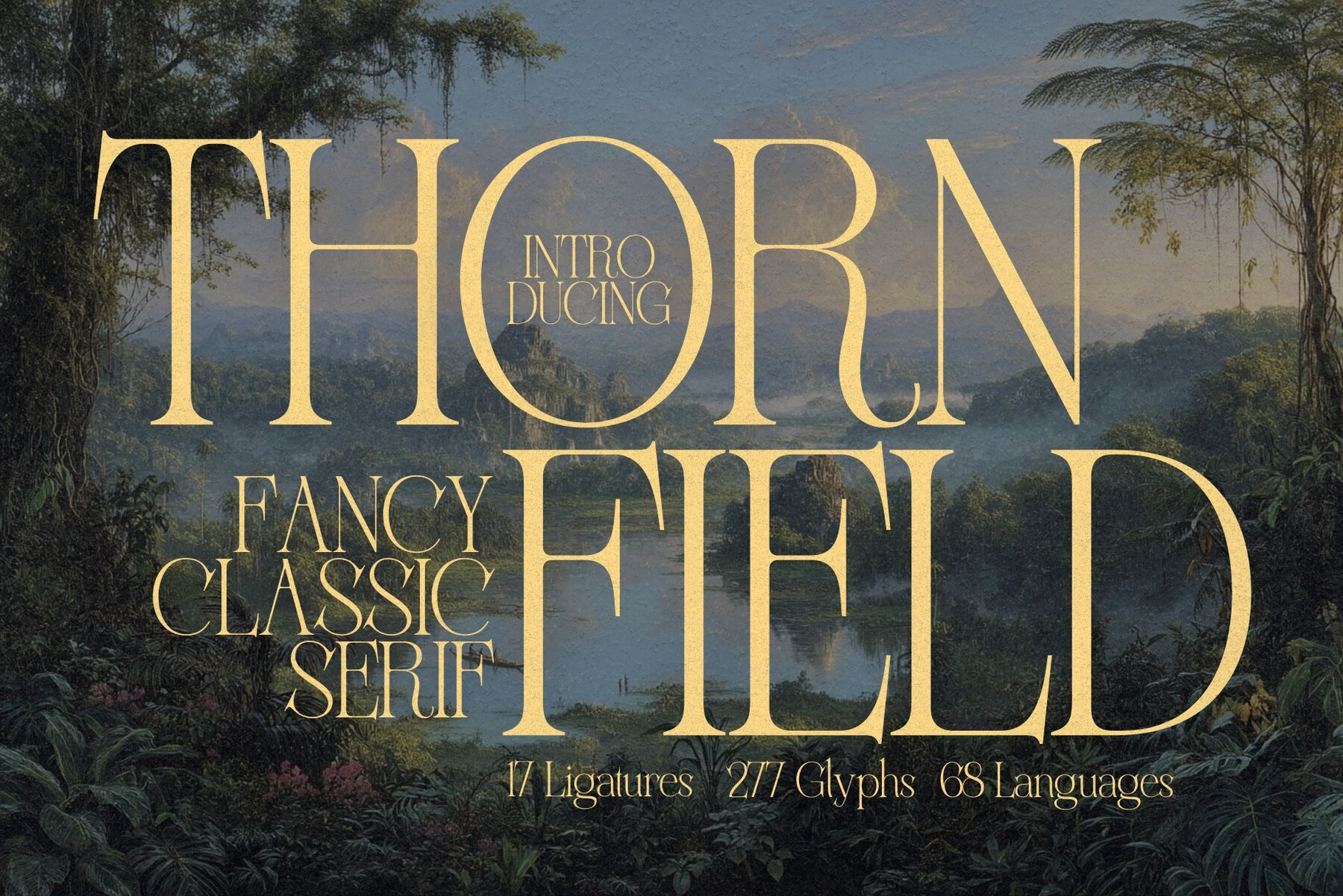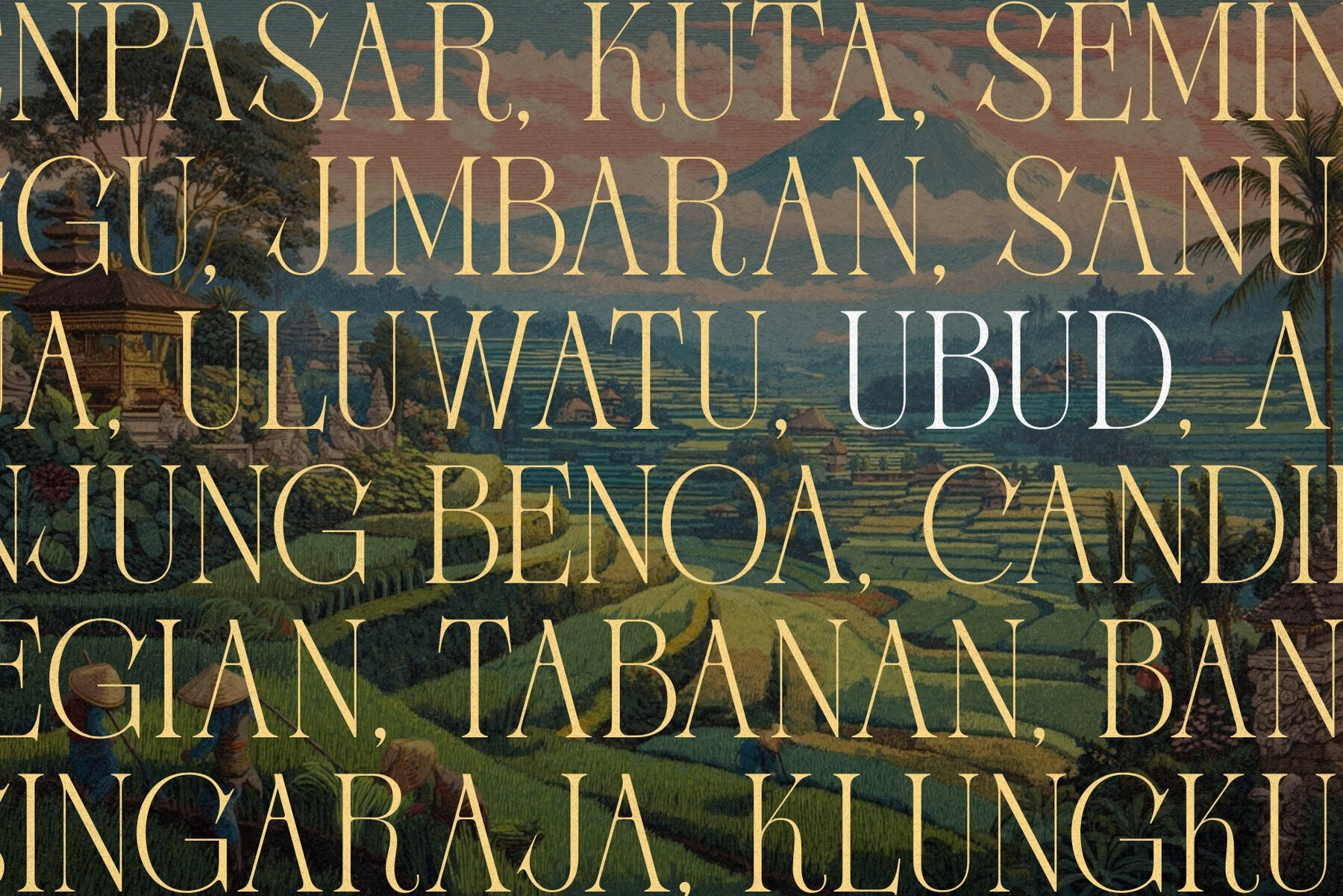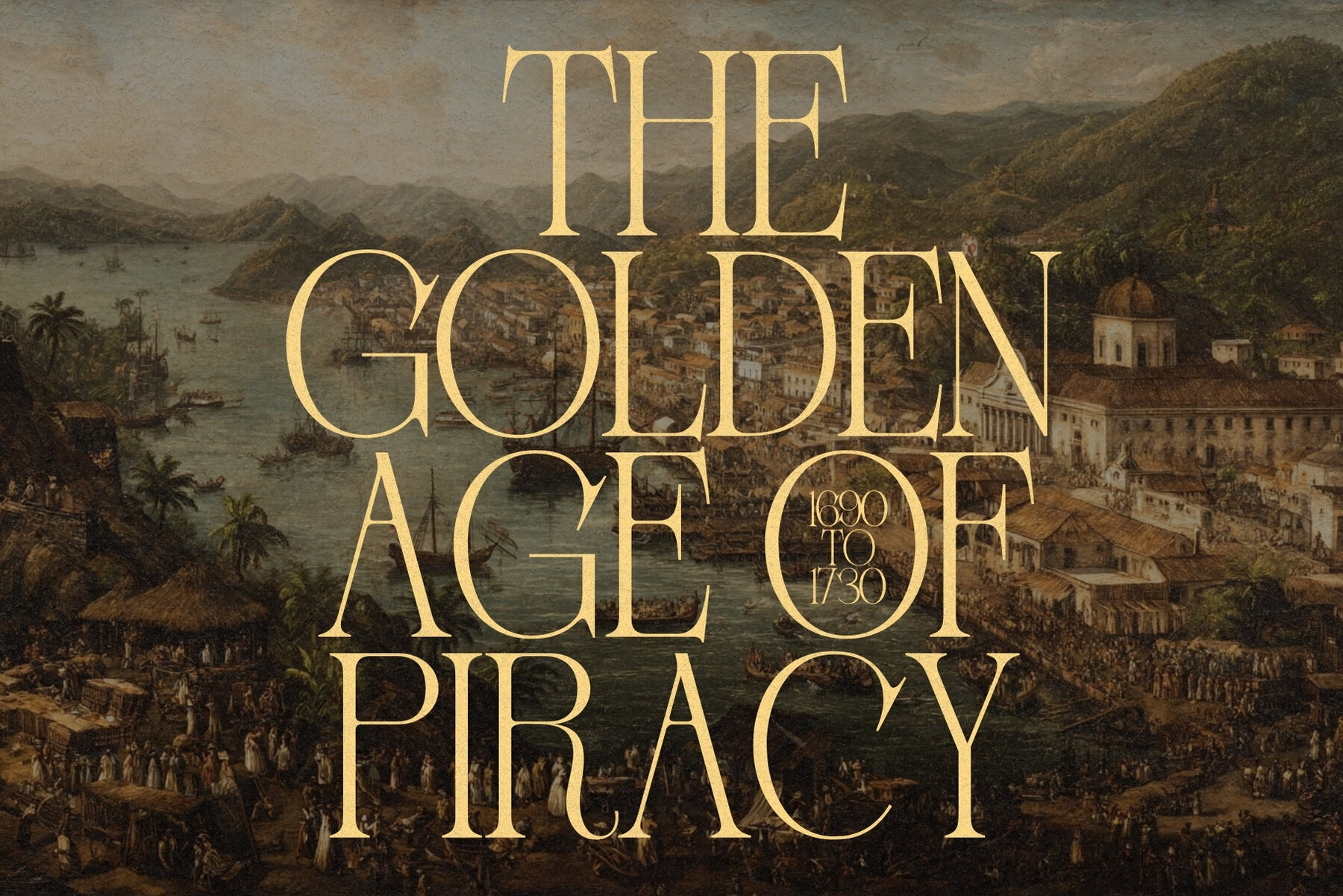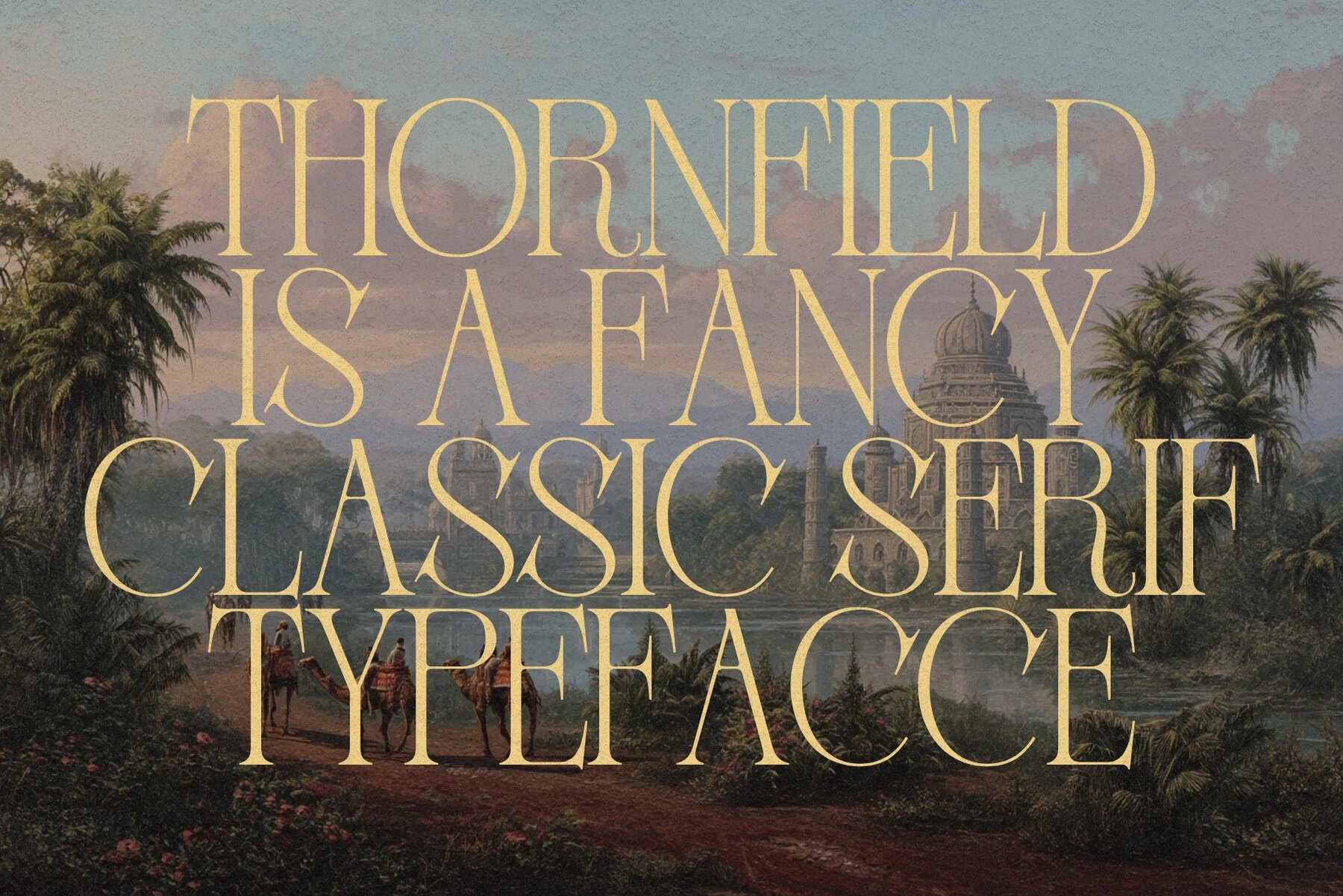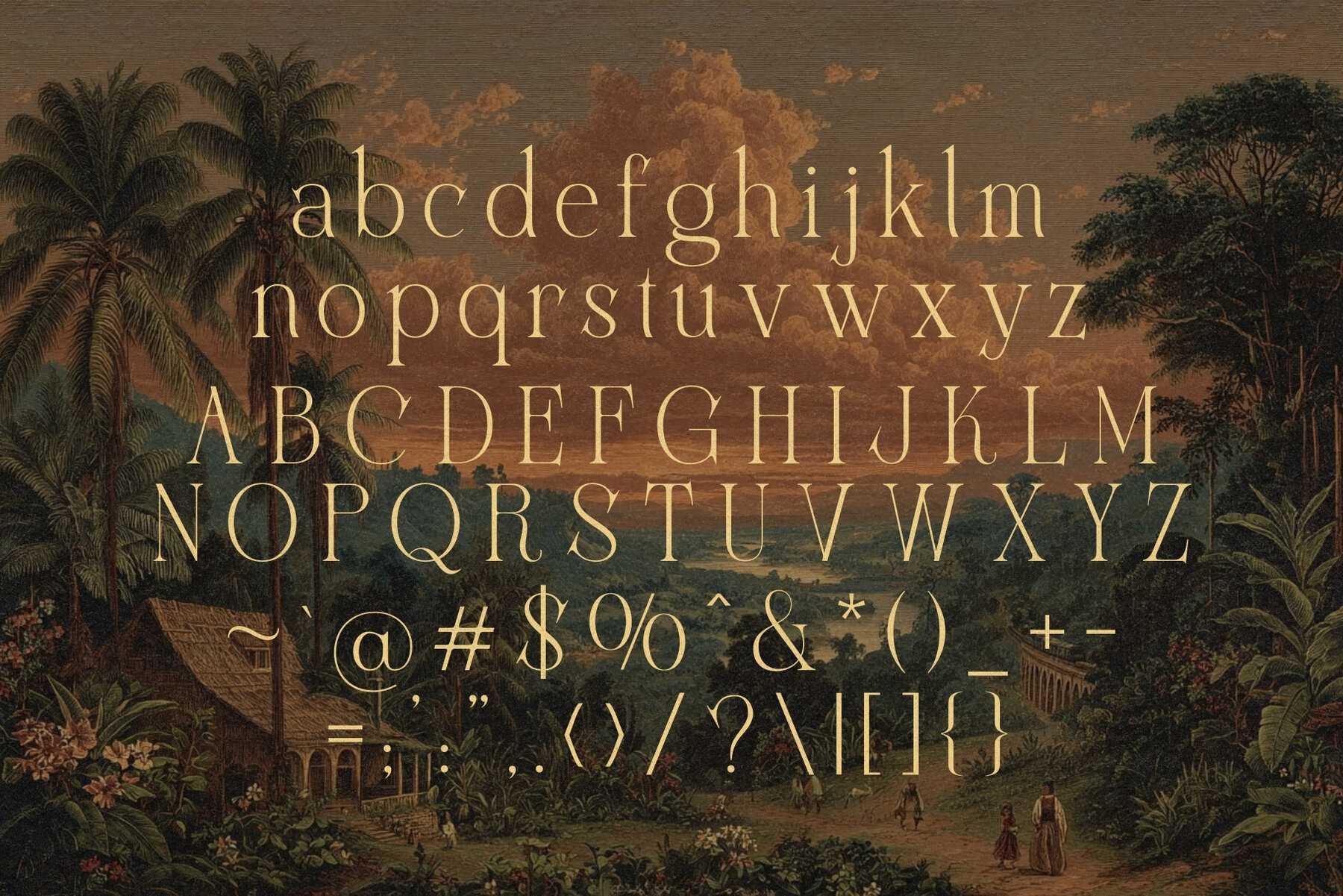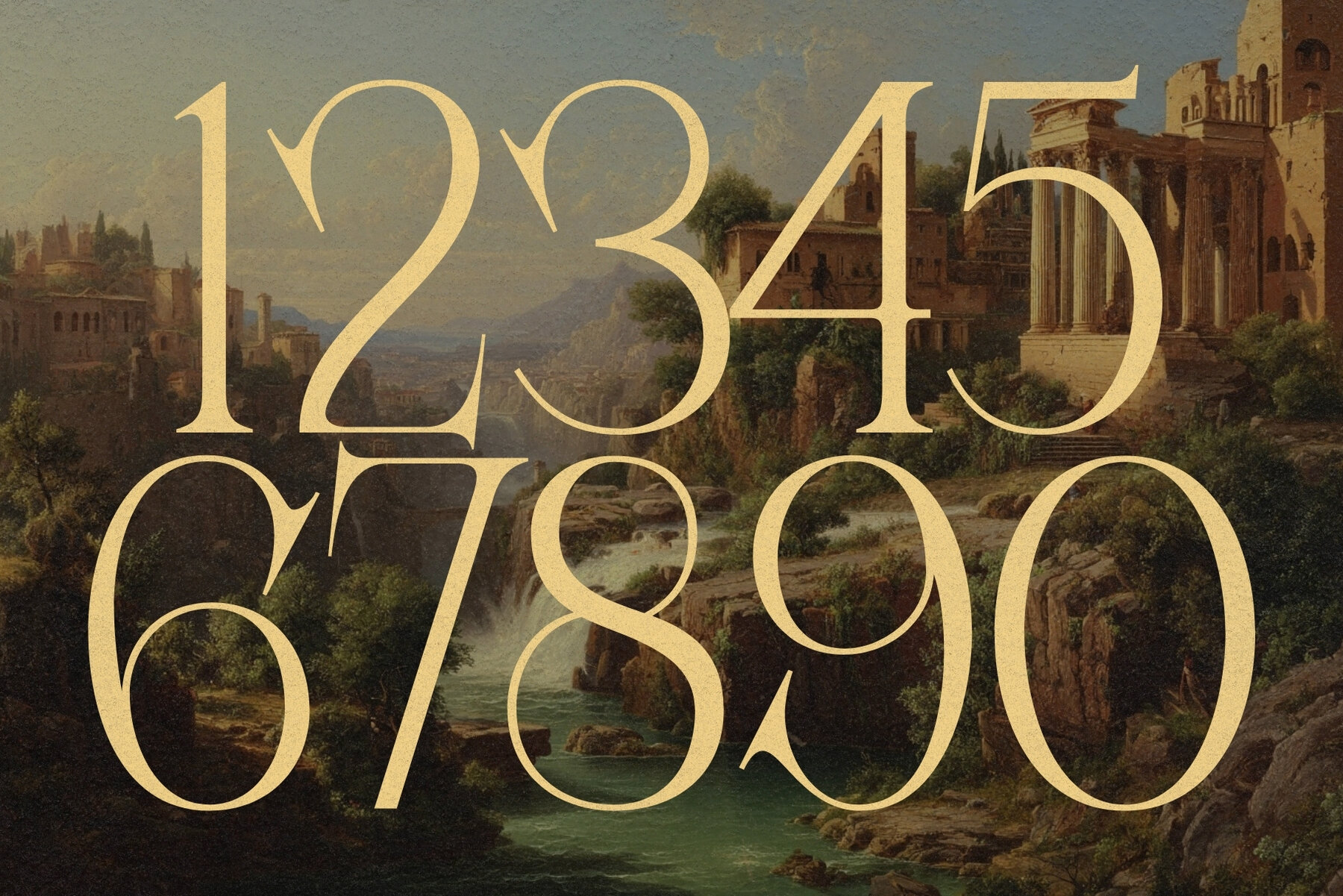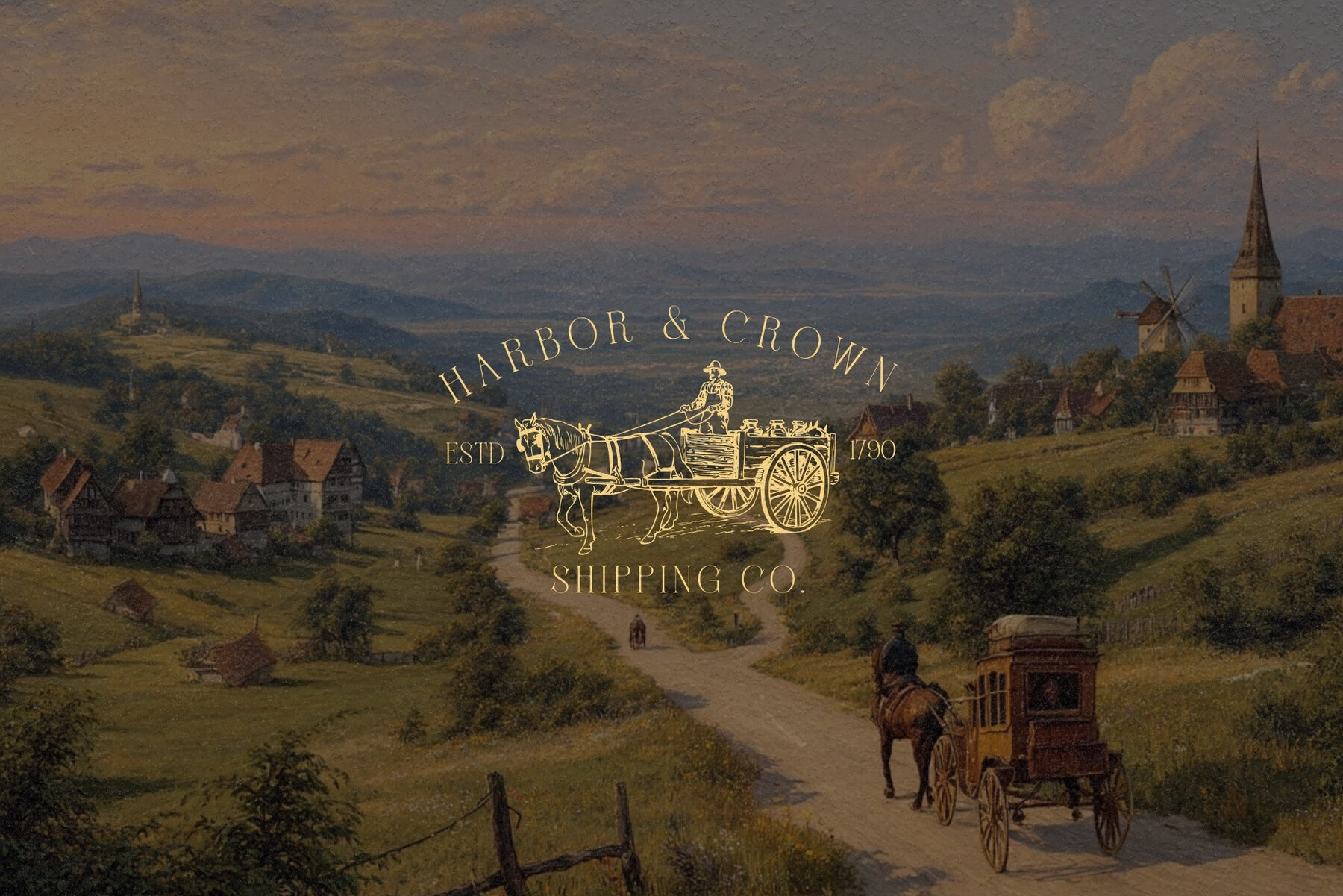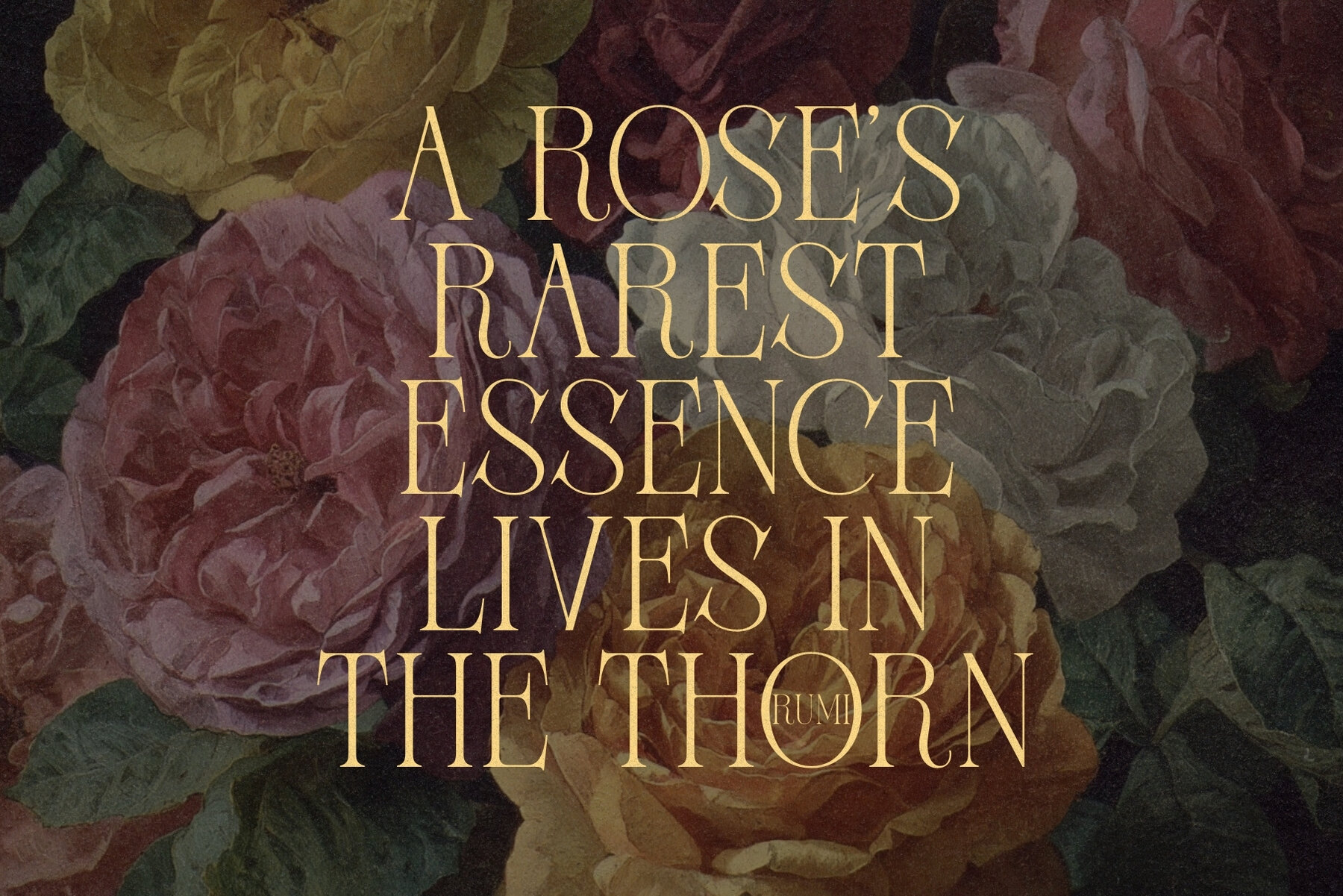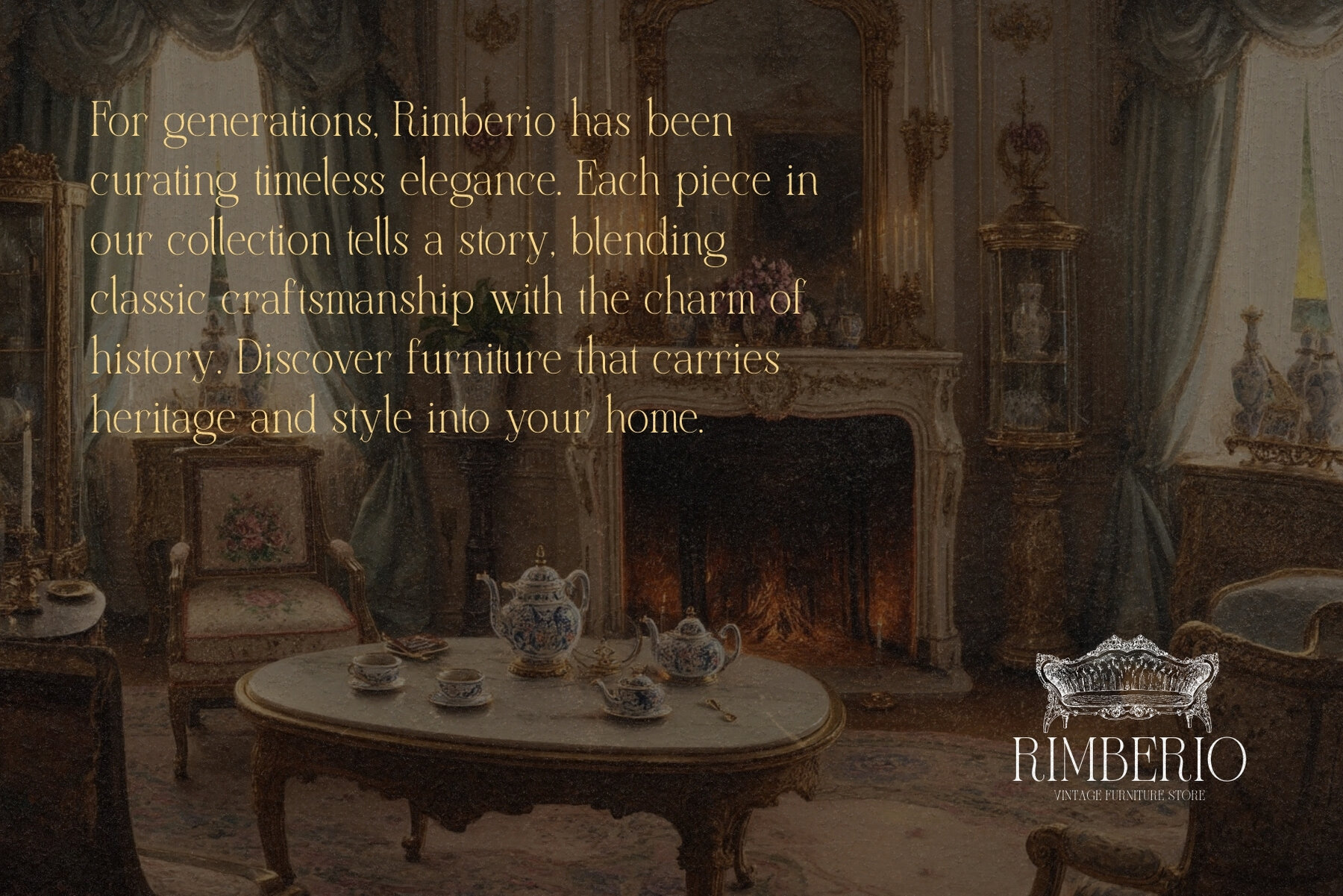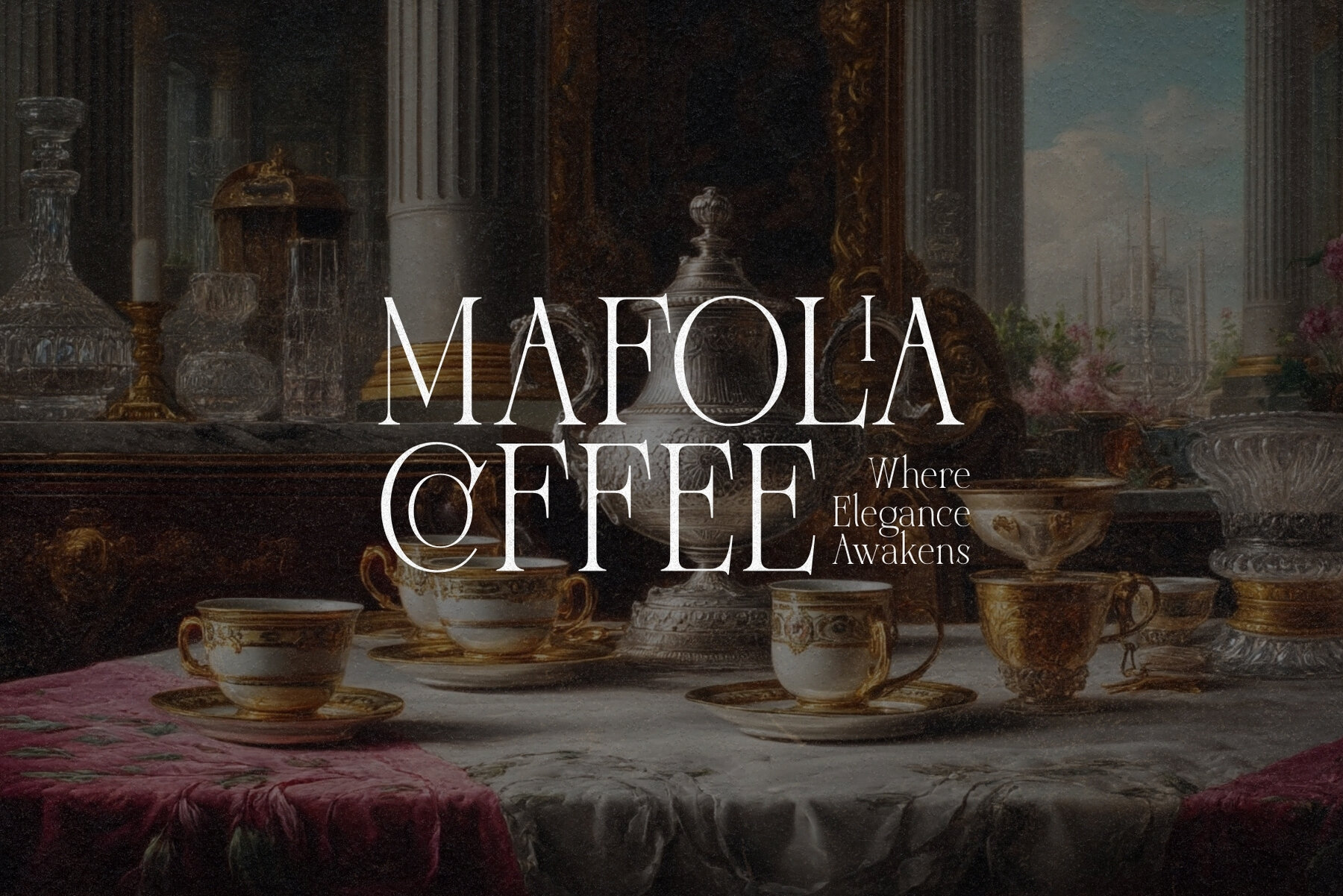
Thornfield Font
Thornfield Serif Regular
Thornfield presents a serene blend of elegance and clarity, shaped to complement a wide array of creative endeavors. With its sophisticated curves and distinct letterforms, this serif typeface is ideal for enhancing the allure of logos, magazines, and branding strategies that require a refined touch. The intentionality of its design is underscored by 17 exclusive ligatures, offering a luxurious aesthetic without ostentation. The versatility of Thornfield makes it suitable for diverse applications, from high-fashion editorials to chic digital posts. Its array of weights and attention to detail produce a polished, deliberate appearance that imparts each letter with a sense of purpose and balance.Thornfield: A Classy Serif Typeface